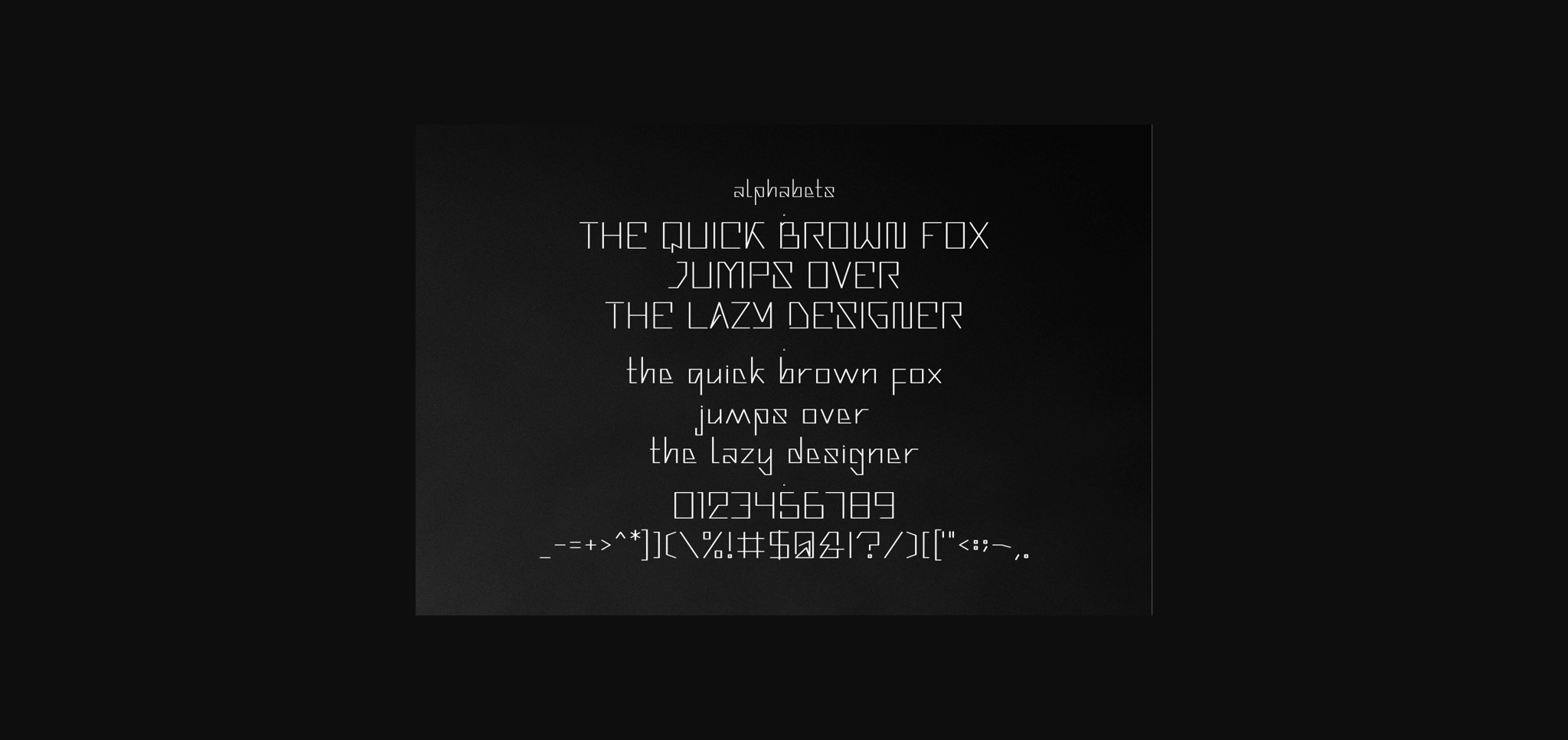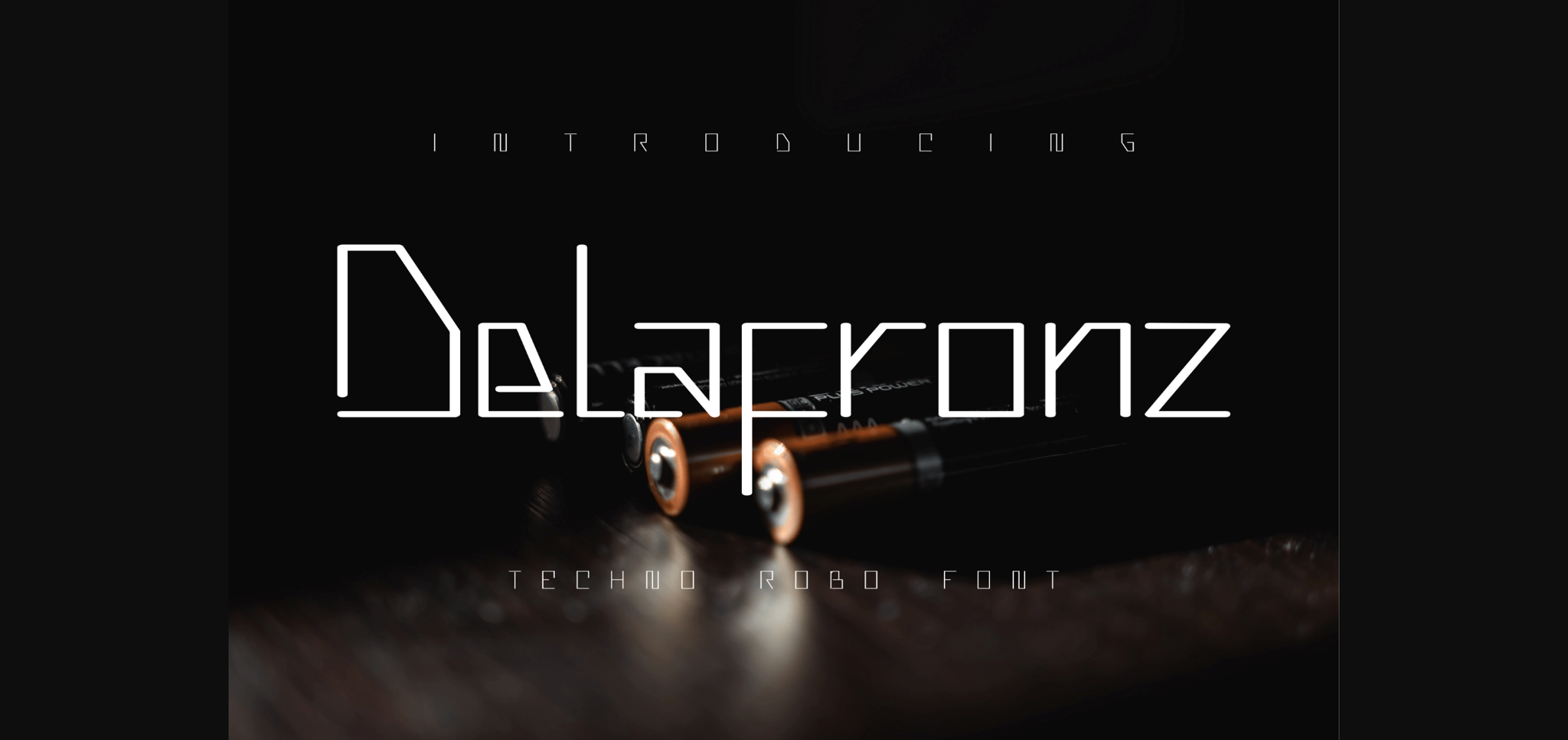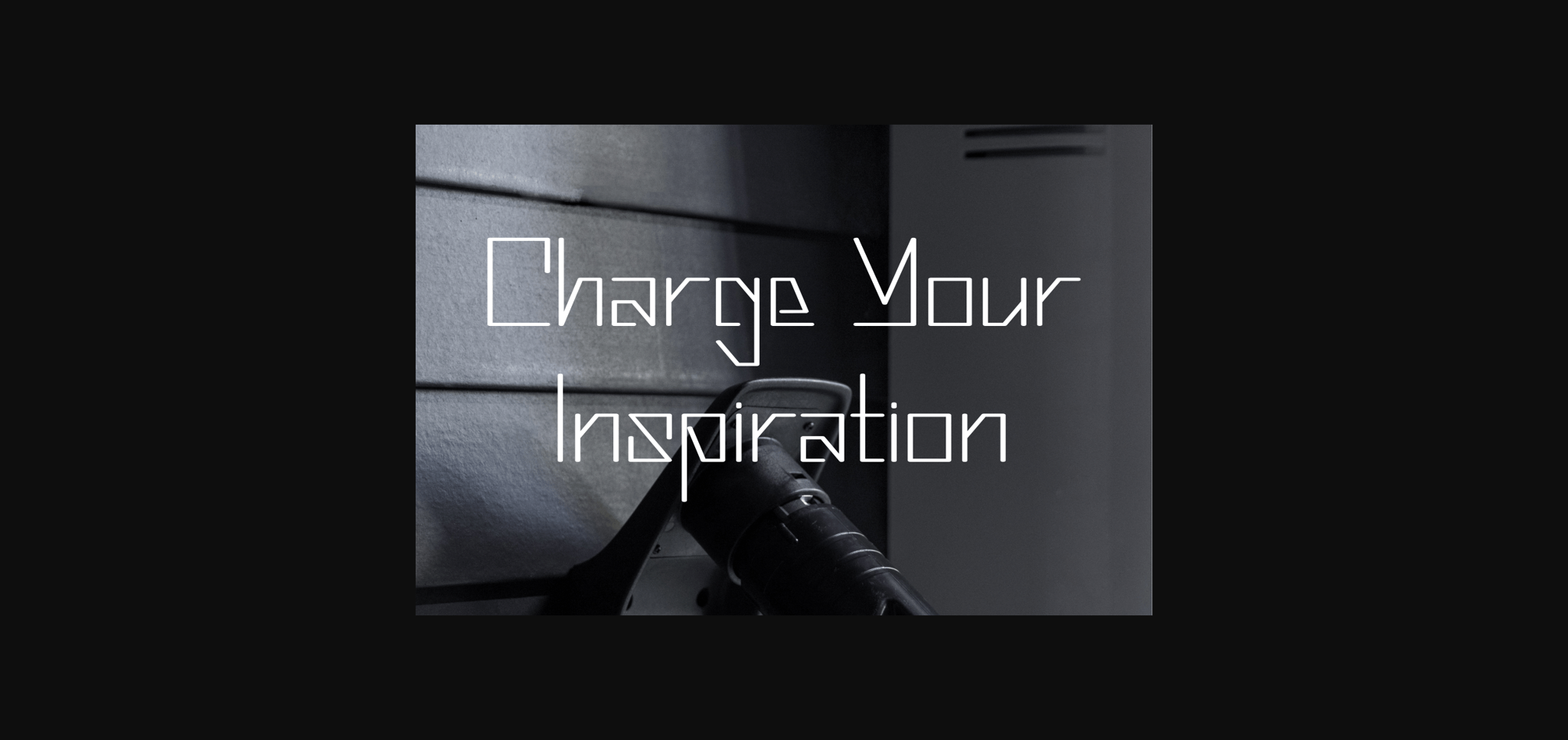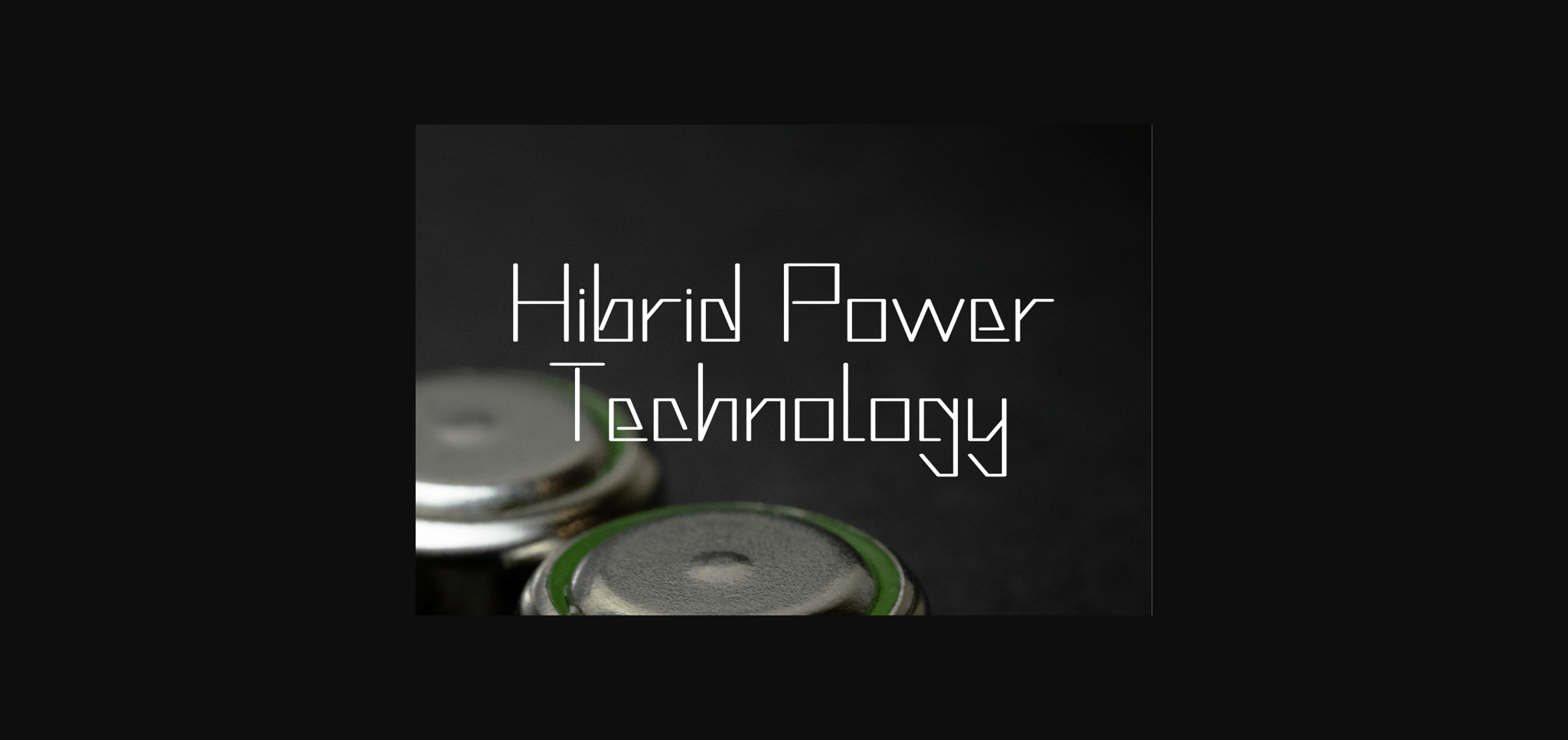
About Delafronz Font
Delafronz is an elegant, classy, and modern sans serif font. It’s a great font for fashion, apparel projects, signatures, album covers, logos, branding, magazines, social media, & advertisements, but also works great for other projects.